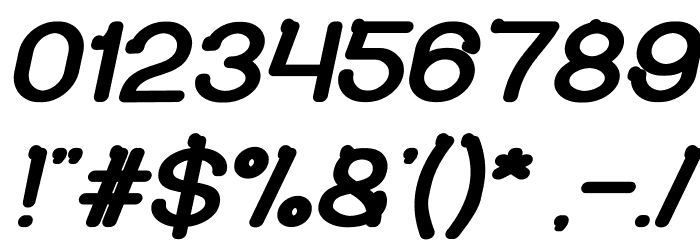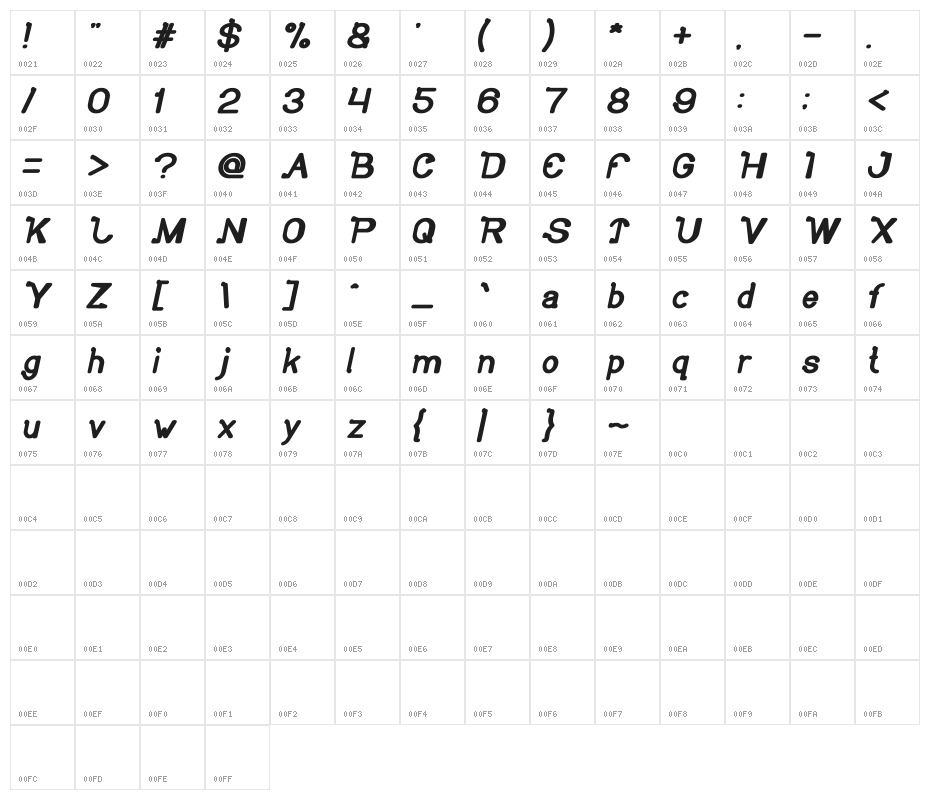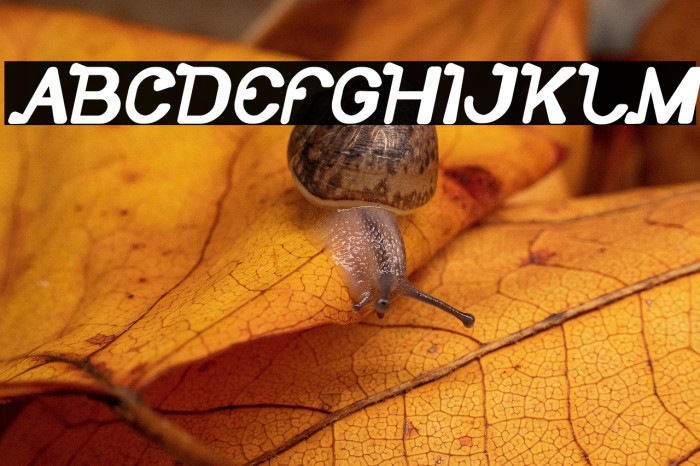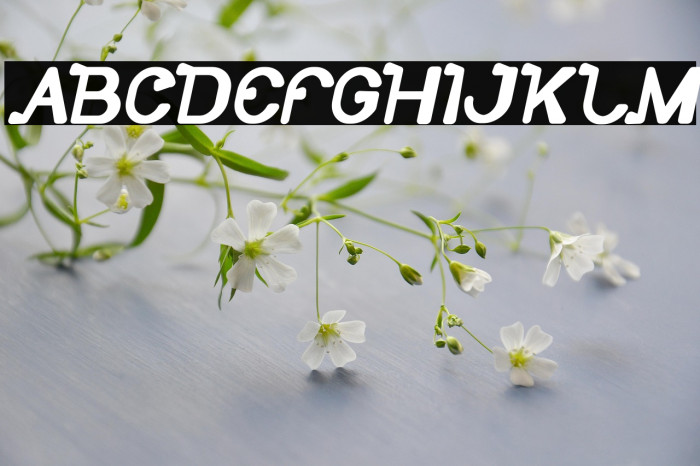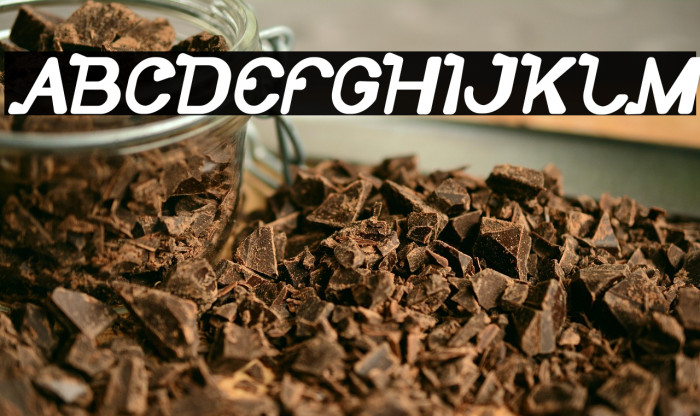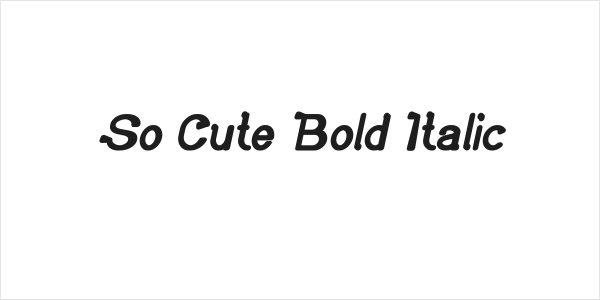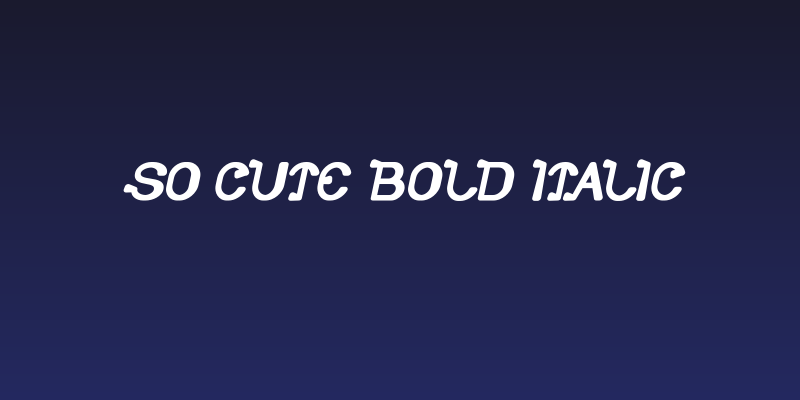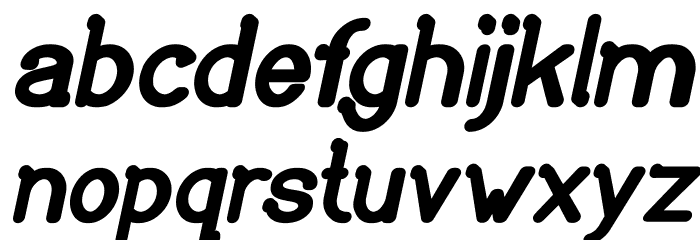
So Cute Bold Italic Font
So Cute Bold Italic Description
This playful and bold typeface features a charming, rounded style that exudes a sense of fun and whimsy. The letters are thick and well-defined, with a slight slant that adds a dynamic, italicized effect. The font maintains a consistent weight throughout, ensuring readability while still capturing attention with its unique character. The rounded edges and smooth curves give it a friendly and approachable appearance, making it ideal for projects that require a touch of personality and warmth. The numbers and special characters are equally bold and consistent, complementing the overall style of the alphabet. This font is perfect for designs that aim to be both eye-catching and inviting.
| Proposed Projects | Ideal for children's books, playful branding, greeting cards, and social media graphics. |